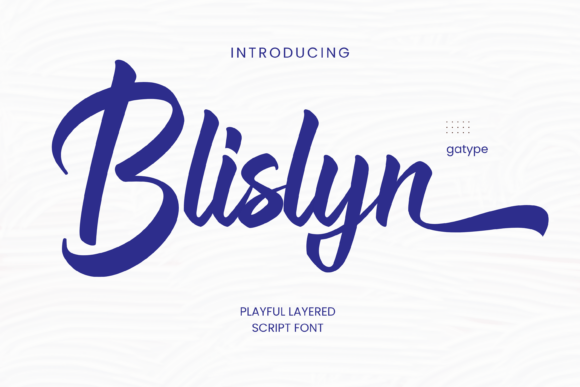
Introducing Blislyn Font: A Playful Layered Script Font
Are you looking for a font that can add a touch of playfulness and personality to your designs? Look no further than Blislyn, a charming layered script font that is sure to make your words twirl, bounce, and shine. In this article, we’ll take a closer look at Blislyn and explore its features, benefits, and uses.
What is Blislyn Font?
Blislyn is a playful layered script font designed with smooth curves and lively swashes. Its unique layered design allows you to stack multiple layers to create vibrant titles, standout logos, and joyful design moments. With Blislyn, you can add a spark of fun to your designs and make them truly unforgettable.
Key Features of Blislyn Font
- Smooth Curves: Blislyn features smooth, flowing curves that give it a playful and elegant feel.
- Lively Swashes: The font comes with lively swashes that add a touch of personality to your designs.
- Layered Design: Blislyn’s layered design allows you to stack multiple layers to create unique and eye-catching effects.
- Playful Personality: The font has a playful and charming personality that is perfect for designs that need a touch of fun.
Benefits of Using Blislyn Font
So, why should you use Blislyn font in your designs? Here are just a few benefits:
- Adds Personality: Blislyn adds a touch of personality to your designs, making them more engaging and memorable.
- Versatile: The font is versatile and can be used for a wide range of designs, from playful branding to sweet packaging.
- Easy to Use: Blislyn is easy to use and can be customized to fit your design needs.
- Unique: The font’s layered design and playful personality make it a unique addition to any design.
Uses of Blislyn Font
Blislyn font is perfect for a wide range of designs, including:
- Playful Branding: Use Blislyn to create playful and memorable brand identities.
- Sweet Packaging: The font is perfect for packaging designs that need a touch of fun and personality.
- Logos: Blislyn’s layered design makes it perfect for creating standout logos.
- Social Media Graphics: Use the font to create eye-catching social media graphics that are sure to grab attention.
Tips for Using Blislyn Font
Here are a few tips for using Blislyn font in your designs:
- Experiment with Layers: Don’t be afraid to experiment with the font’s layered design to create unique effects.
- Mix and Match: Try mixing and matching different layers and swashes to create a unique look.
- Keep it Simple: Don’t overcomplicate your design – sometimes, simple is best.
- Have Fun: Most importantly, have fun and be creative!
In conclusion, Blislyn font is a playful layered script font that is sure to add a touch of personality and fun to your designs. With its smooth curves, lively swashes, and layered design, Blislyn is perfect for playful branding, sweet packaging, and anything that needs a spark of fun. So why not give it a try and see what amazing designs you can create?
- What is Blislyn font? Blislyn is a playful layered script font designed with smooth curves and lively swashes.
- What is Blislyn font used for? Blislyn font is perfect for playful branding, sweet packaging, logos, and social media graphics.
- Is Blislyn font easy to use? Yes, Blislyn font is easy to use and can be customized to fit your design needs.